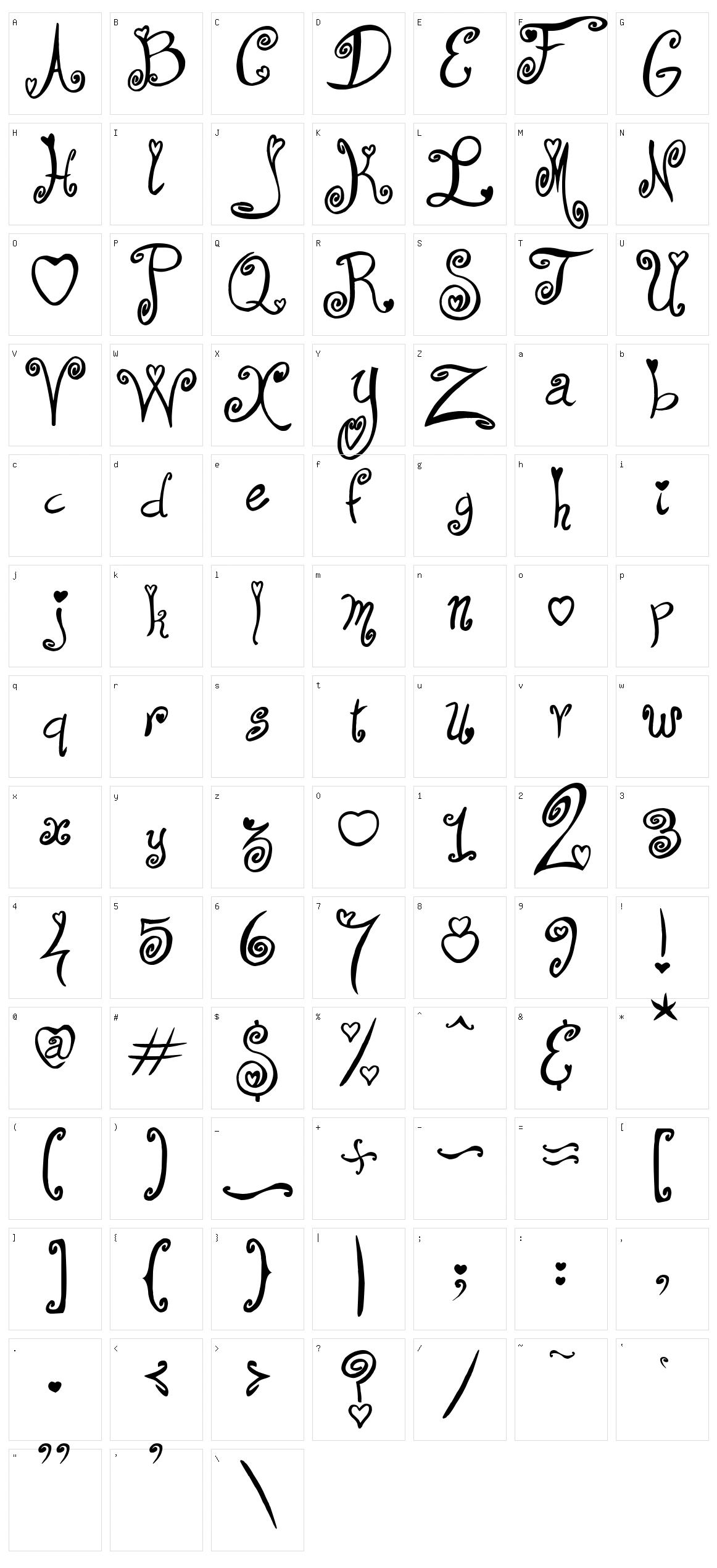
The free font From Me 2 You is carefully designed by imagex, showcasing a thoughtful balance of creativity and usability and falls under the Valentine font style. When you download the ZIP file, it contains only 45.69 KB of font files, making it lightweight and quick to download. Please review the license details below to understand permitted usage and distribution rights. If license information is not available, we recommend using this font for personal projects only or contacting the author directly for commercial usage permissions.